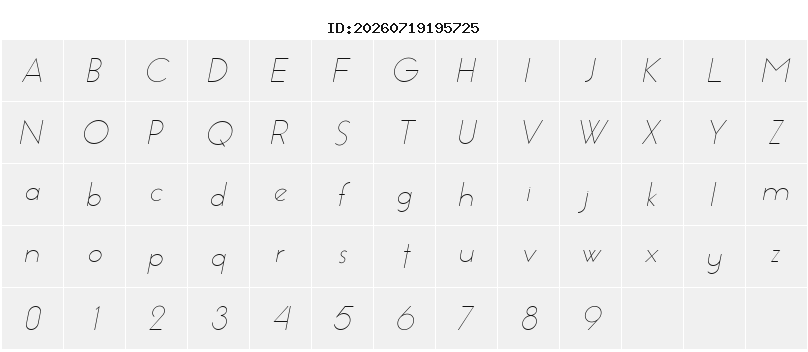
• Font Name: Essence Sans
• Designer: Paulo R
Essence Sans.ttf is a modern, elegant sans-serif font designed for ultimate readability and visual harmony. Perfect for branding, headlines, web design, and print materials.